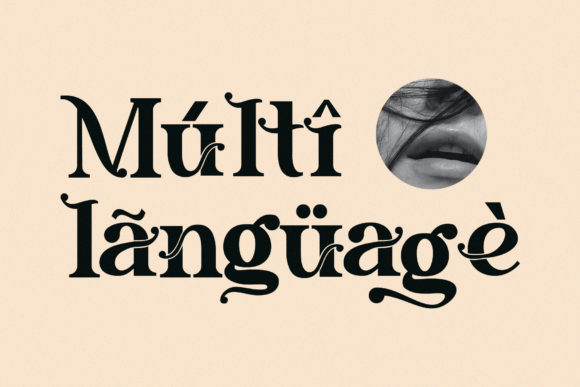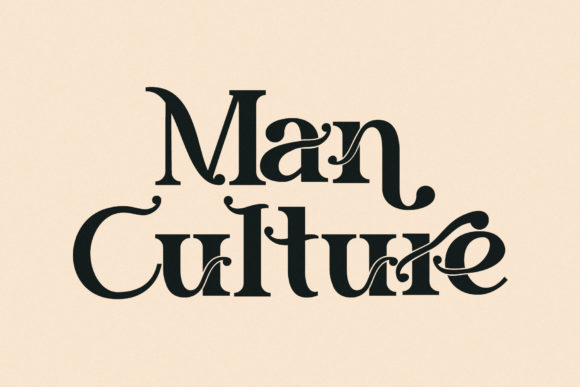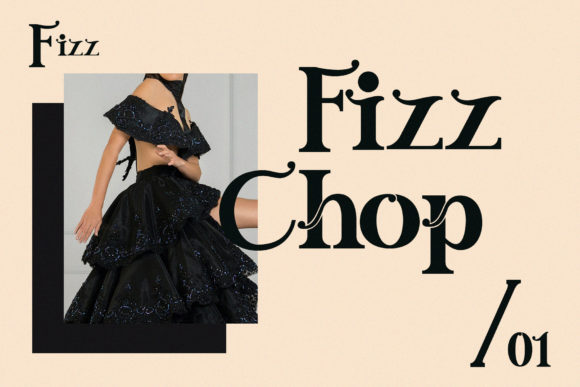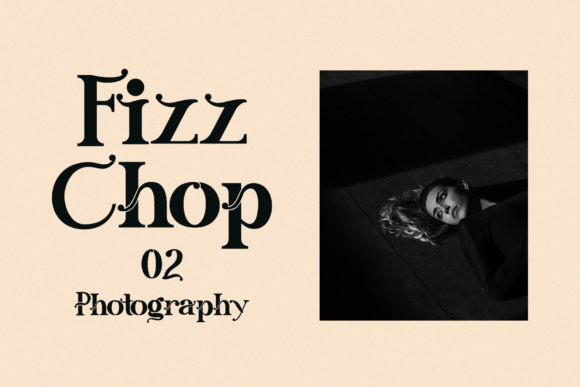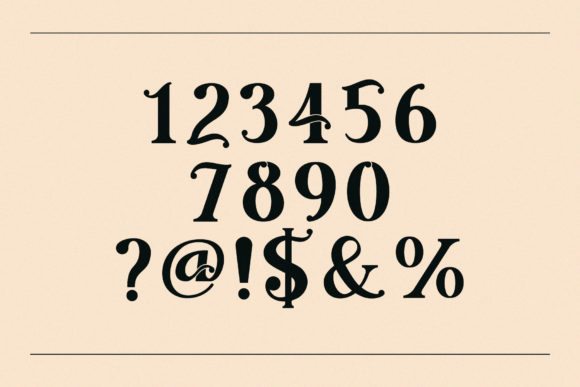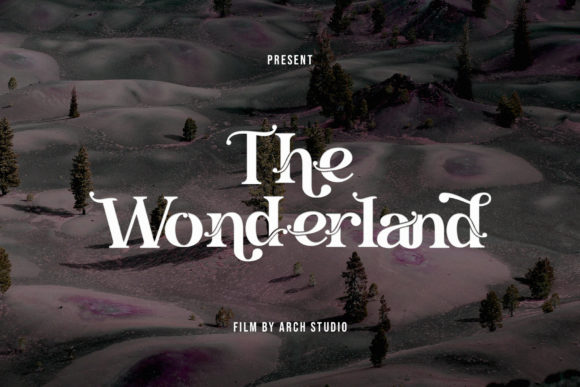
Begul Font: Elevate Your Designs with Elegance and Simplicity
In the world of design, typography plays a crucial role in conveying messages, evoking emotions, and creating lasting impressions. For designers and crafters seeking a font that embodies both beauty and simplicity, Begul Font is an exceptional choice. This stunning serif font is perfect for a wide range of design projects, from branding and product packaging to invitations, quotes, T-shirts, labels, posters, logos, and more.
The Beauty of Begul Font
Begul Font is characterized by its elegant and uncomplicated design, making it an ideal choice for designers who want to add a touch of sophistication to their work. The font’s serif details provide a classic and timeless feel, while its simple structure ensures versatility and readability. Whether you’re working on a luxury brand identity or a creative craft project, Begul Font is sure to enhance your designs and make them stand out.
One of the key benefits of Begul Font is its versatility. Its elegant design makes it suitable for a wide range of applications, including:
- Branding: Establish a strong brand identity with Begul Font, perfect for logos, business cards, and brand guidelines.
- Product Packaging: Add a touch of luxury to your product packaging with this beautiful serif font.
- Invitations: Create stunning invitations for weddings, parties, and other special events.
- Quotes: Make inspirational quotes and phrases more impactful with Begul Font’s elegant design.
- T-shirts and Apparel: Design eye-catching T-shirts, hoodies, and other apparel with this versatile font.
- Labels and Posters: Use Begul Font to create attractive labels, posters, and flyers for various events and promotions.
- Logos: Create unique and memorable logos for businesses, products, or services.
Why Choose Begul Font?
With so many fonts available, why choose Begul Font for your design projects? Here are a few compelling reasons:
- Elegant Design: Begul Font boasts a beautiful and simple design that adds a touch of sophistication to any project.
- Versatility: Use Begul Font for a wide range of design projects, from branding and packaging to invitations and apparel.
- Readability: The font’s clear and simple structure ensures excellent readability, even at small sizes.
- Timeless Appeal: Begul Font’s classic design ensures that your work will remain stylish and relevant for years to come.
Tips for Using Begul Font Effectively
To get the most out of Begul Font, consider the following tips:
- Pair with Other Fonts: Experiment with pairing Begul Font with other fonts to create visually appealing contrast and hierarchy.
- Adjust Font Sizes: Play with font sizes to create emphasis and add visual interest to your designs.
- Use Color Wisely: Choose colors that complement the elegant design of Begul Font and enhance your overall message.
Begul Font is a beautiful and simple serif font that can elevate your designs and make them more attractive and outstanding. With its elegant design, versatility, and readability, it’s perfect for a wide range of design projects. Whether you’re a designer, crafter, or DIY enthusiast, Begul Font is an excellent addition to your typography collection. So why wait? Download Begul Font today and take your designs to the next level!